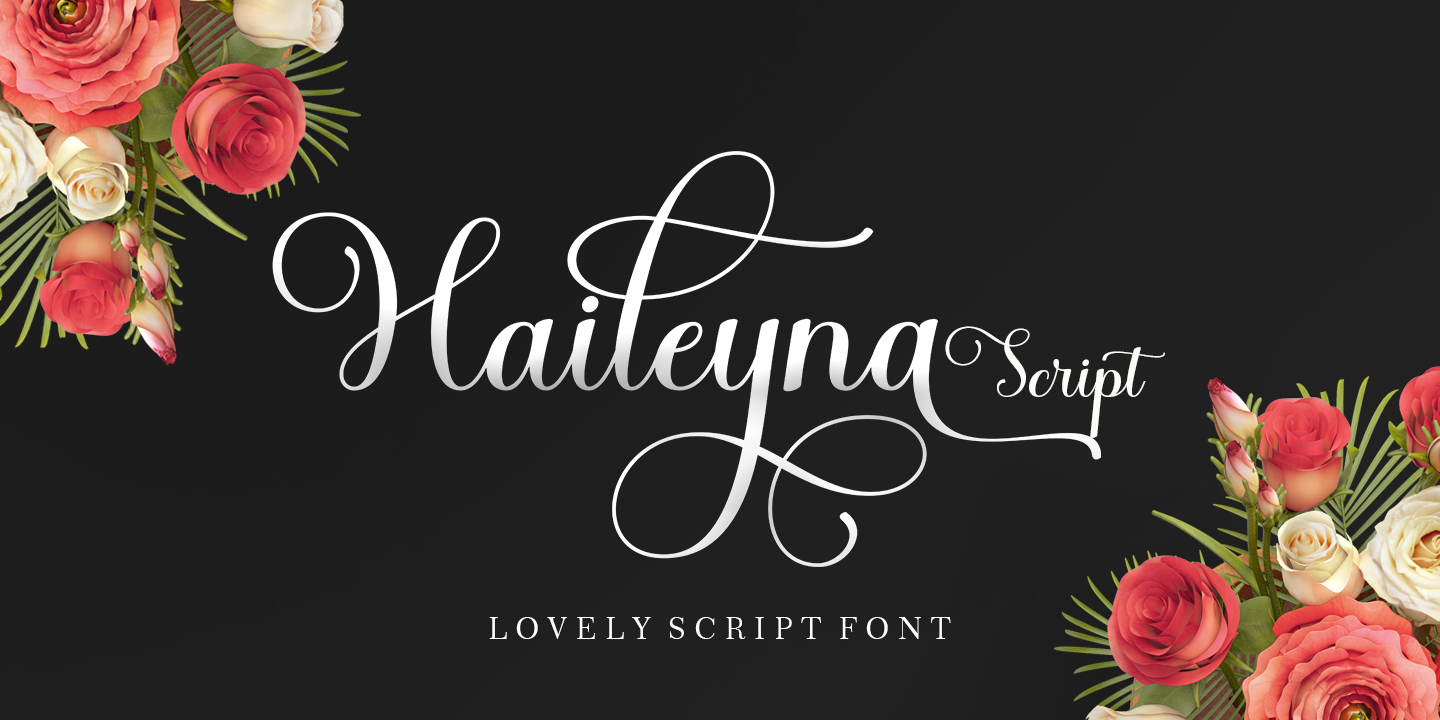
Haileyna Font is perfect for elegant personal branding, sophisticated wedding invitations, luxury beauty campaigns, feminine boutique materials, graceful stationery designs, refined lifestyle magazines, stylish fashion promotions, and beautiful personal communications.
This graceful script typeface is exciting because it embodies timeless femininity and sophisticated elegance through flowing letterforms that capture the essence of personal grace and the refined beauty of contemporary feminine style.
The Haileyna Font family includes regular and ornamental weights with elegant alternates, feminine decorative elements, and graceful flourishes that enhance the sophisticated, personal atmosphere of any elegant design project.
Elegant and personal, Haileyna Font Free Download brings the refined grace and sophisticated femininity of personal style to contemporary typography through authentic elegant character. This beautiful font embodies the confidence and personal sophistication that defines modern feminine elegance, making it perfect for women entrepreneurs and luxury brands who understand that true beauty comes from authentic self-expression and personal confidence. Its graceful character reflects the attention to detail and personal care that creates memorable experiences and builds lasting relationships through genuine elegance, resonating with audiences who appreciate authentic sophistication and the personal touch that makes luxury meaningful. Perfect for bridal boutiques and personal branding specialists, this font ensures your message carries the feminine authenticity and elegant presence that discerning women expect from premium personal services. Whether used for wedding materials or luxury lifestyle brands, Haileyna Font Free Download delivers the personal sophistication and feminine credibility that connects with women who understand that true elegance is about expressing individual personality through refined taste and the confidence that comes from knowing one's personal style and embracing authentic feminine grace.